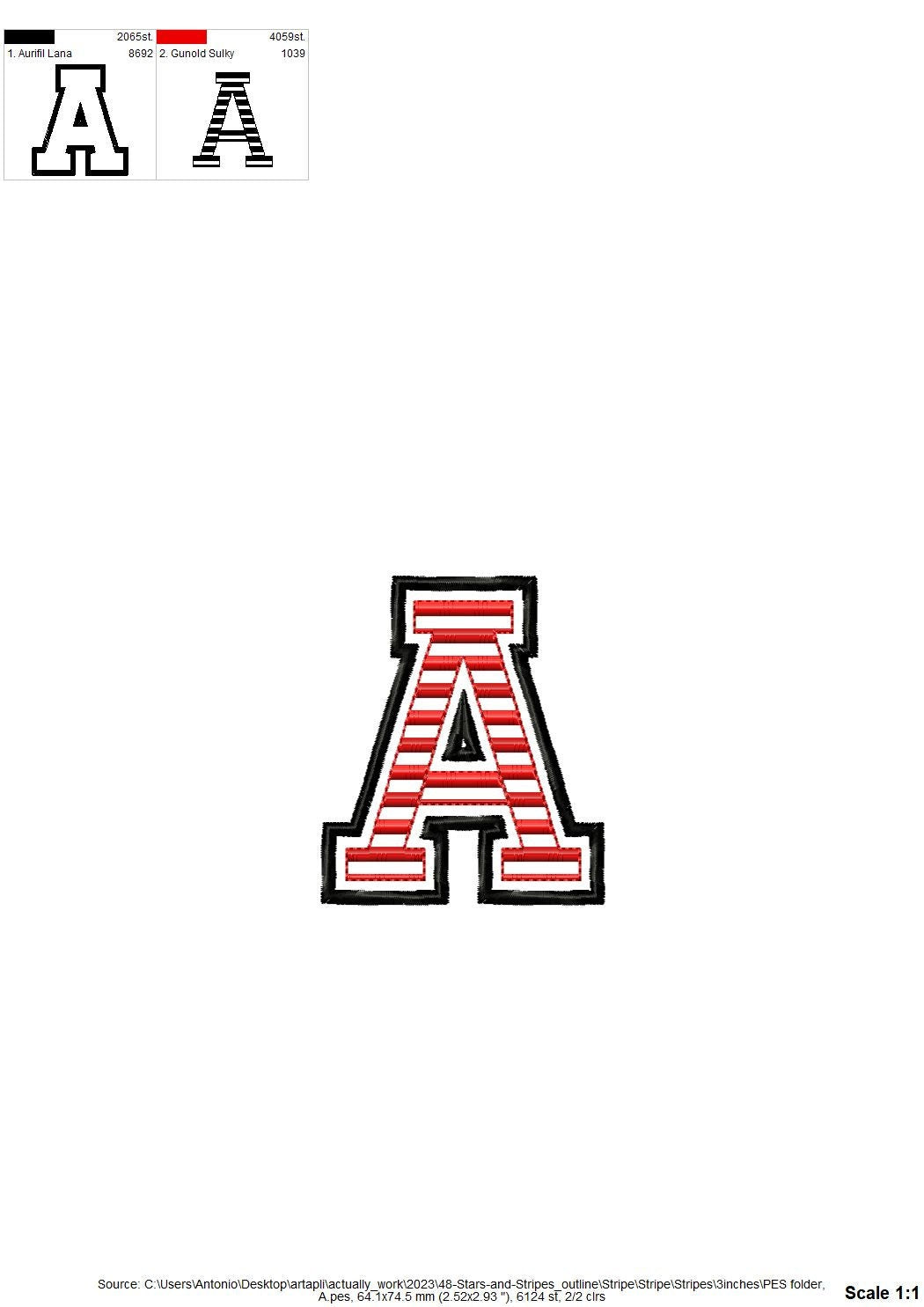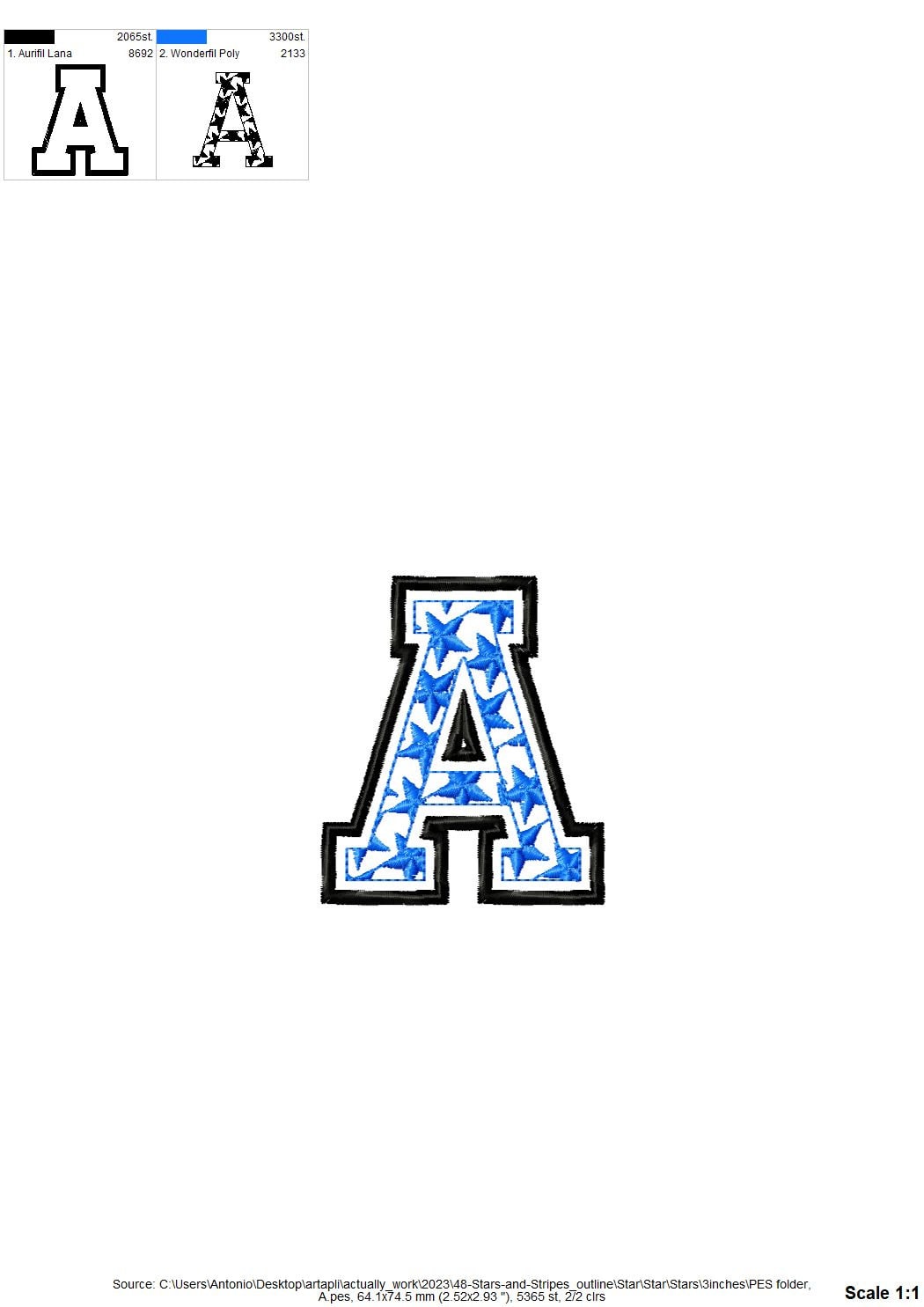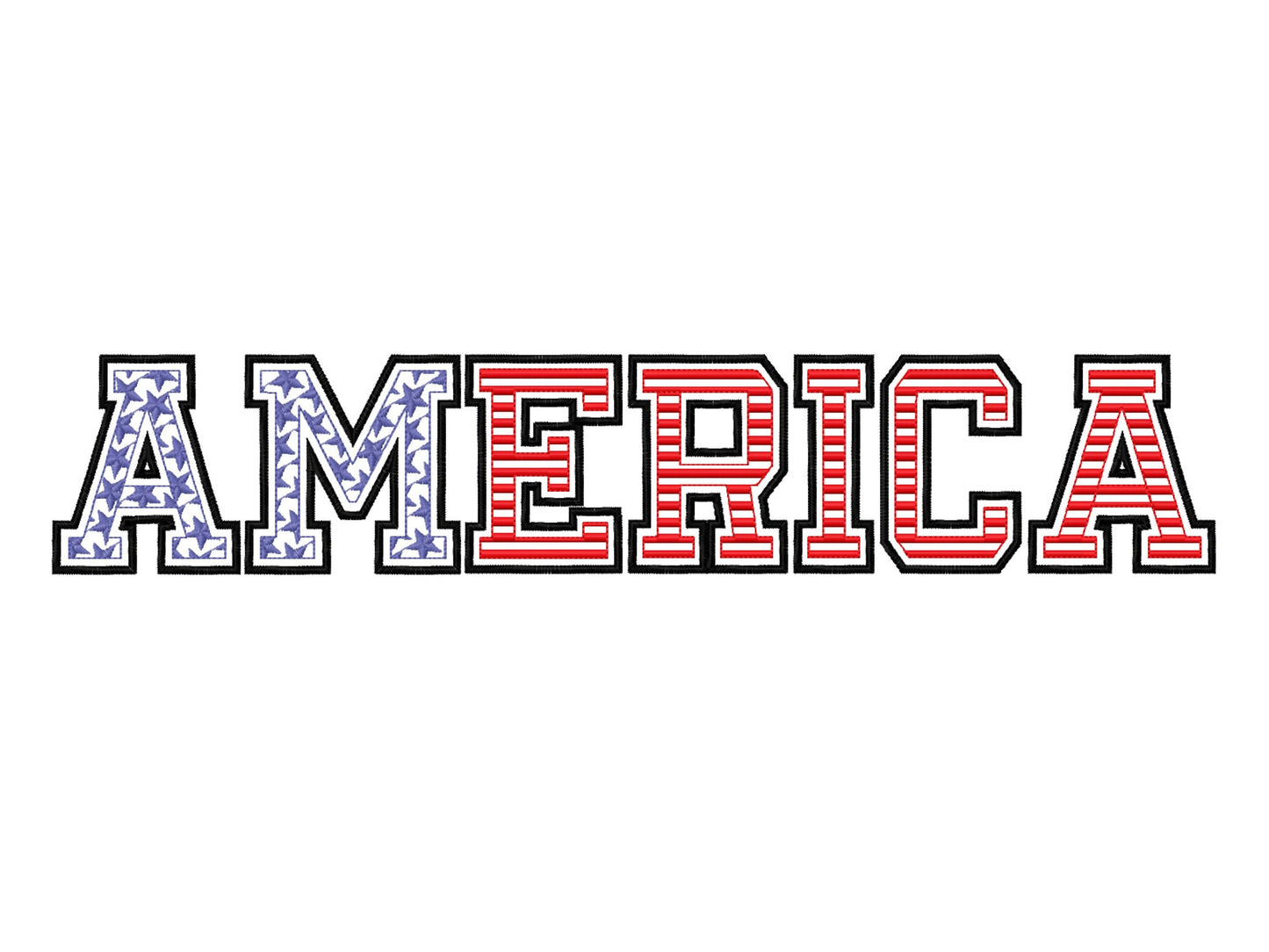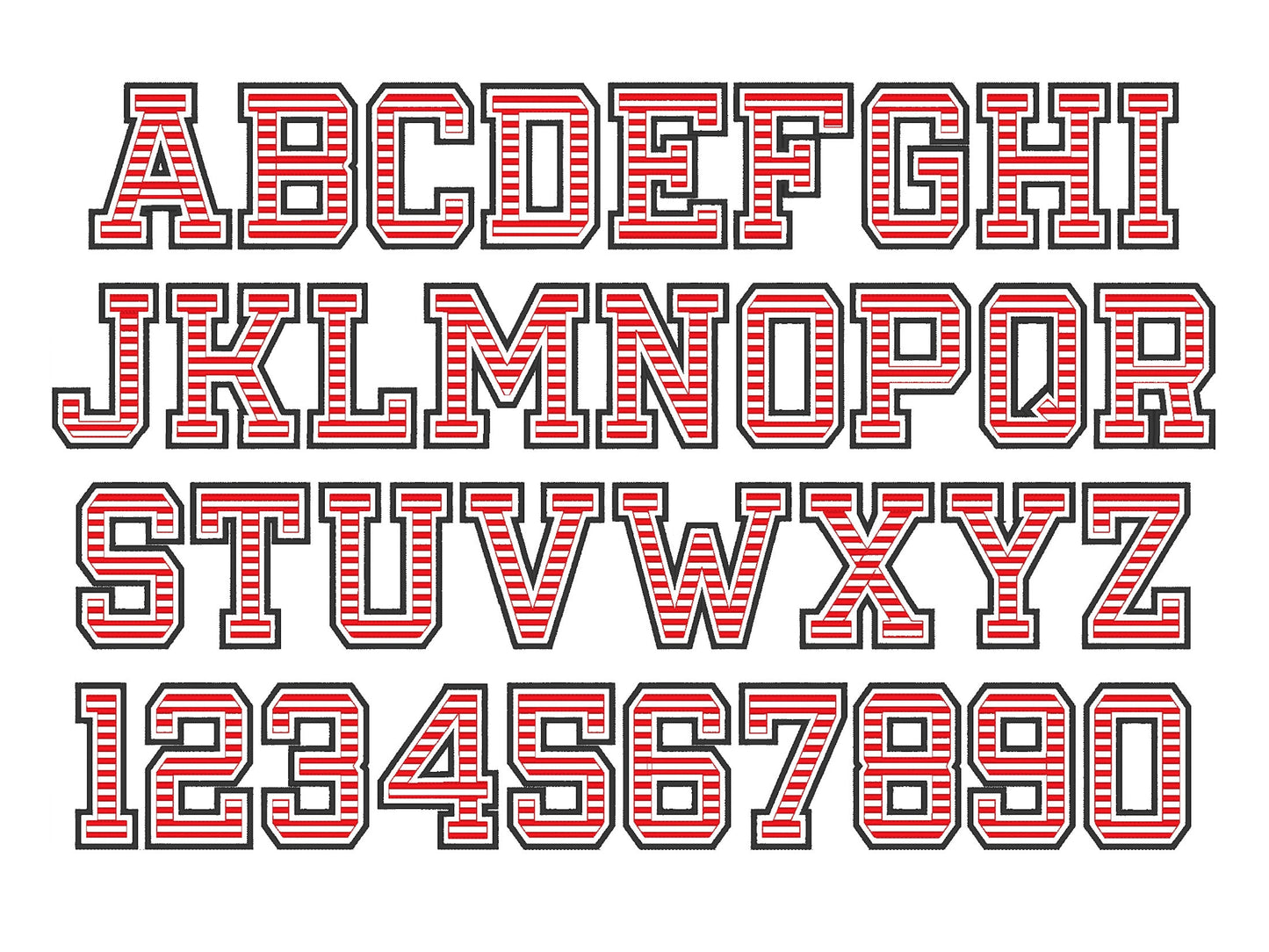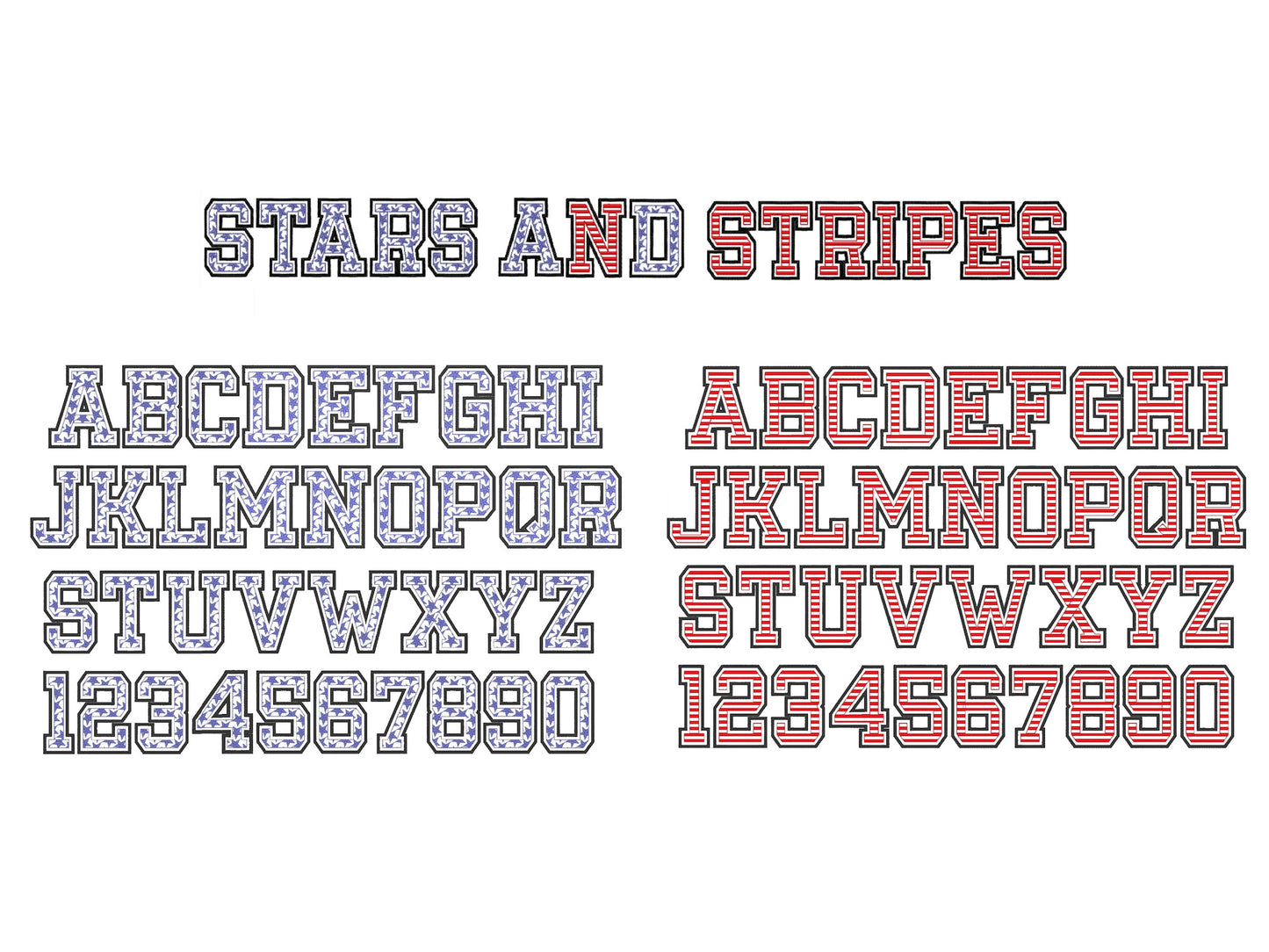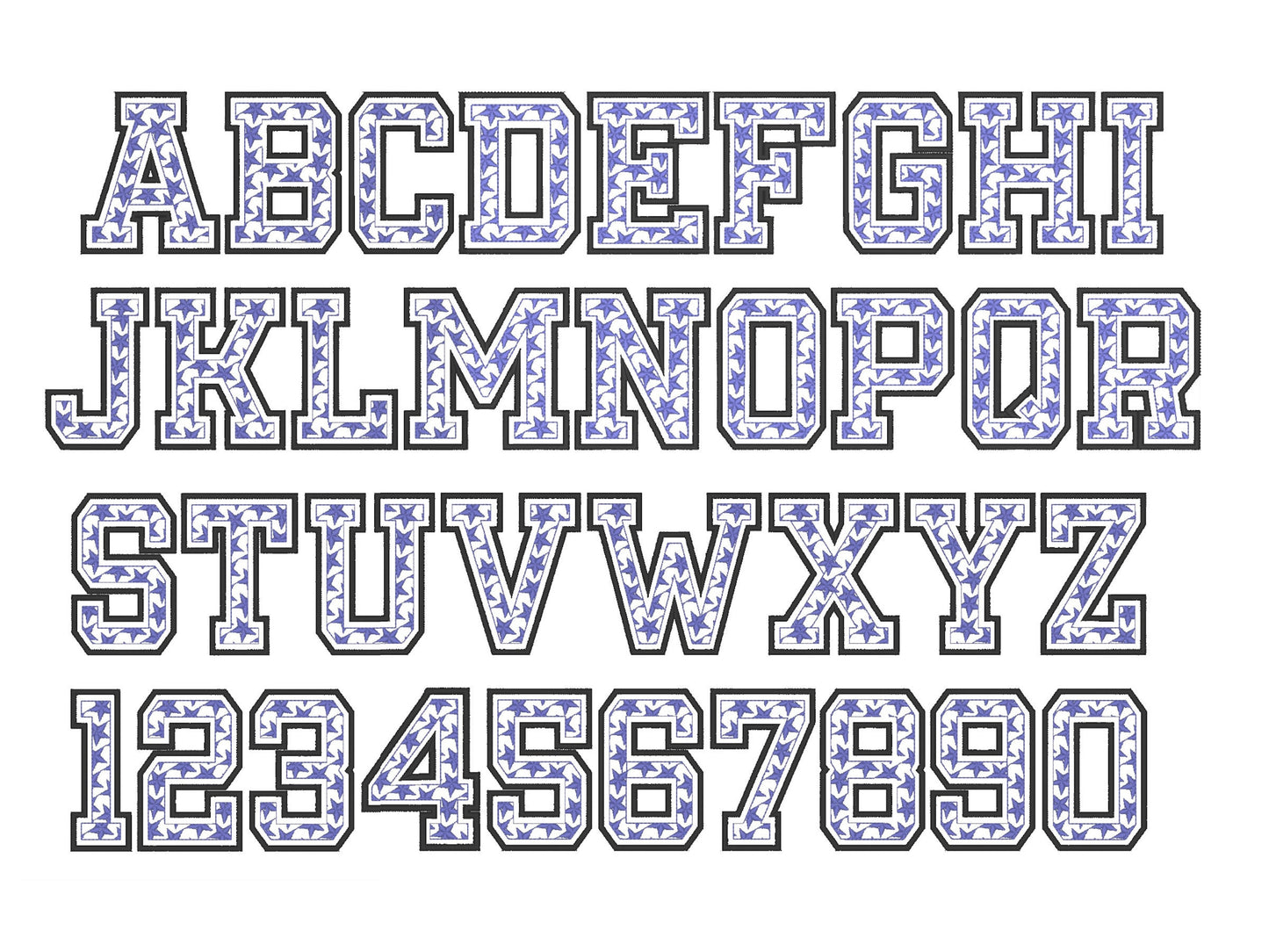
Patriotic Star Patterned Block Font
Or click to open the linkTwo patriotic block fonts, stars and stripes, with an outline, in matching sizes. Great for Fourth of July names and numbers.
Mix starred and striped letters as you like. Letters A to Z and numbers 0 to 9 in four sizes: 2.1, 2.5, 3 and 3.3 inches.